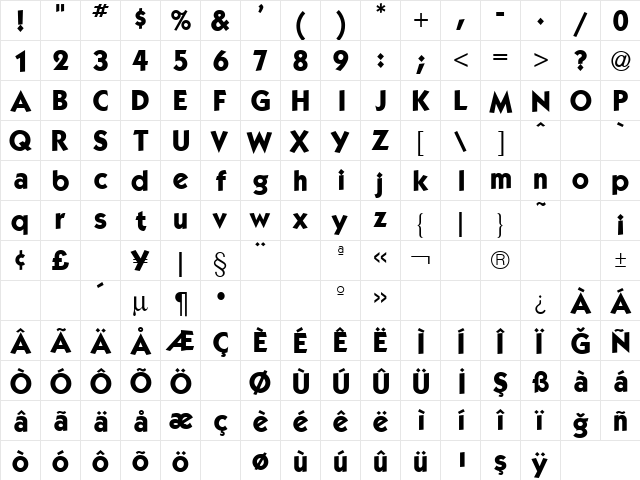
TR Kabel Bd Normal
Design Context for TR Kabel Bd Typeface
TR Kabel Bd offers clean, dependable letterforms without strong stylistic allegiance, making it a practical choice for designers who need flexibility. The heavy weight commands attention and anchors typographic hierarchies.
Pro Tip: Use TR Kabel Bd in both headline and body roles to test its range before committing to a single application.